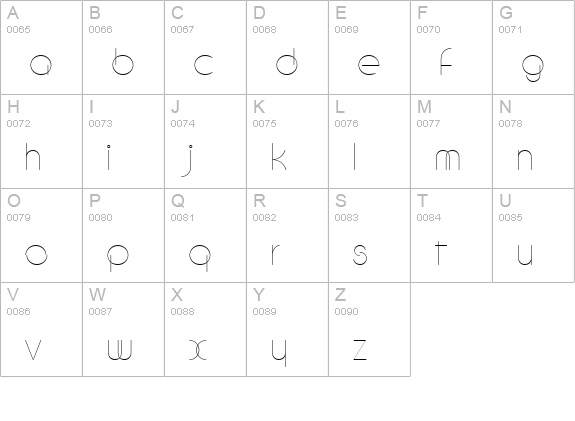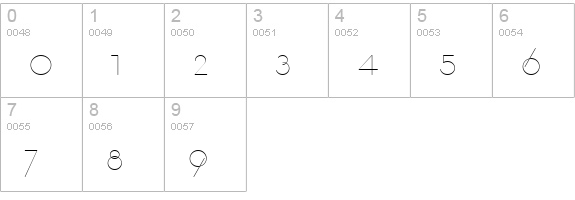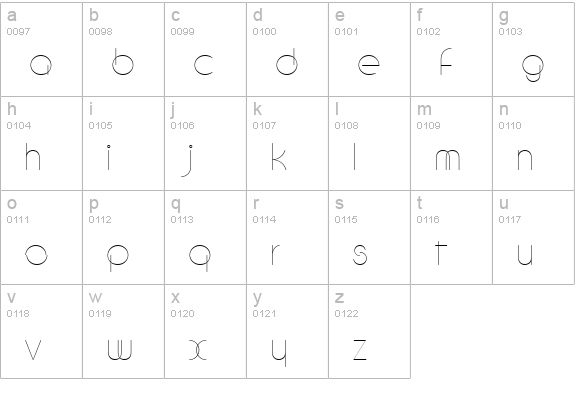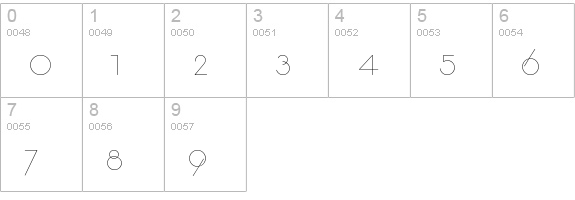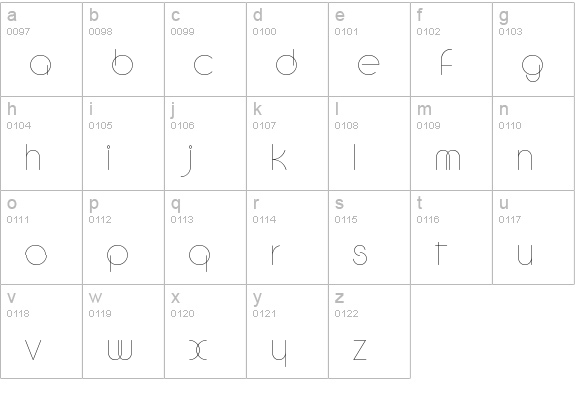
CircleD Font Details
Introducing CircleD font, a modern and stylish typeface that will add a touch of elegance to your design projects. This versatile font features smooth curves and a clean, minimalist look that is perfect for a wide range of applications. Whether you're designing a logo, creating a poster, or crafting a website, CircleD font is sure to make your text stand out. The best part? CircleD font is completely free to download at FontsMarket.com! Simply visit the website and grab your copy of this fantastic font today. Don't miss out on the opportunity to enhance your designs with the beauty and sophistication of CircleD font. Download it now and start creating stunning visuals that will captivate your audience.